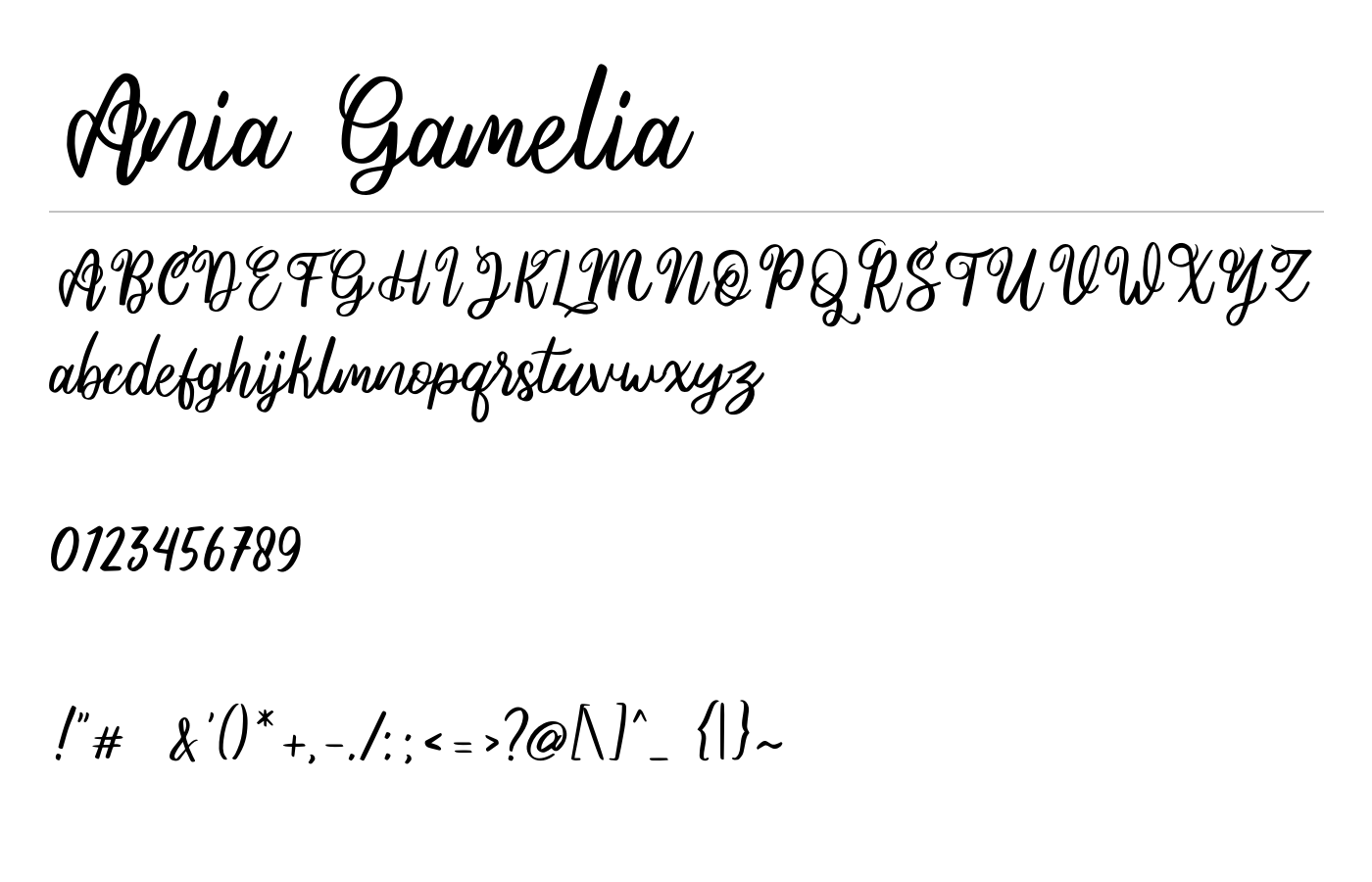
Ania Gamelia is a stylish and elegant script font with smooth, flowing strokes and a medium weight that gives it a balanced yet dynamic appearance. Its playful, handwritten character, featuring both uppercase and lowercase letters with unique curves and subtle flourishes, makes it perfect for creative branding, invitations, and fashion-related designs where a personal, charming touch is desired. This font works especially well for logos, headlines, and decorative text that aims to convey sophistication and warmth.
Ania Gamelia Font
About Ania Gamelia Font